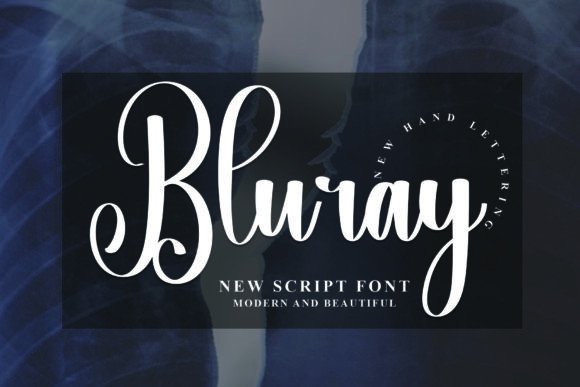
Introducing Bluray, the enchanting handwritten font that sparks romance and magic in every word you write. This exquisite typeface is meticulously crafted with a hint of playfulness and elegance, making it the perfect choice for your upcoming creative projects. Whether you are designing heartwarming Christmas cards, creating eye-catching headlines, or adding a touch of charm to your brand's identity, Bluray promises to captivate and enchant.
Dive into the world of Bluray and discover a symphony of graceful curves, delicate swashes, and captivating ligatures that dance harmoniously on the page. Each letter is lovingly crafted to evoke a sense of joy, love, and nostalgia, ensuring that your words leave a lasting impression. Whether you are a seasoned designer seeking a unique font for your next masterpiece or a beginner eager to explore the art of typography, Bluray is the perfect companion to bring your creative visions to life.
With Bluray, the possibilities are endless. Paint your words with love in personalized greeting cards, sending heartwarming messages to your loved ones. Craft headlines that capture attention and ignite curiosity, leaving your readers captivated from the very first glance. Add a touch of sophistication to your brand's logo or website, creating a visual identity that resonates with your audience and sets you apart from the crowd. The versatility of Bluray knows no bounds, allowing you to weave your creative magic across a multitude of projects.
So, embrace the enchanting world of Bluray and unleash your creativity. Let the magic of this handwritten font transport you to a realm of beauty and inspiration. With Bluray, every word you write becomes a work of art, leaving an indelible mark on the hearts and minds of your readers. Discover the endless possibilities and embark on a creative journey like never before.